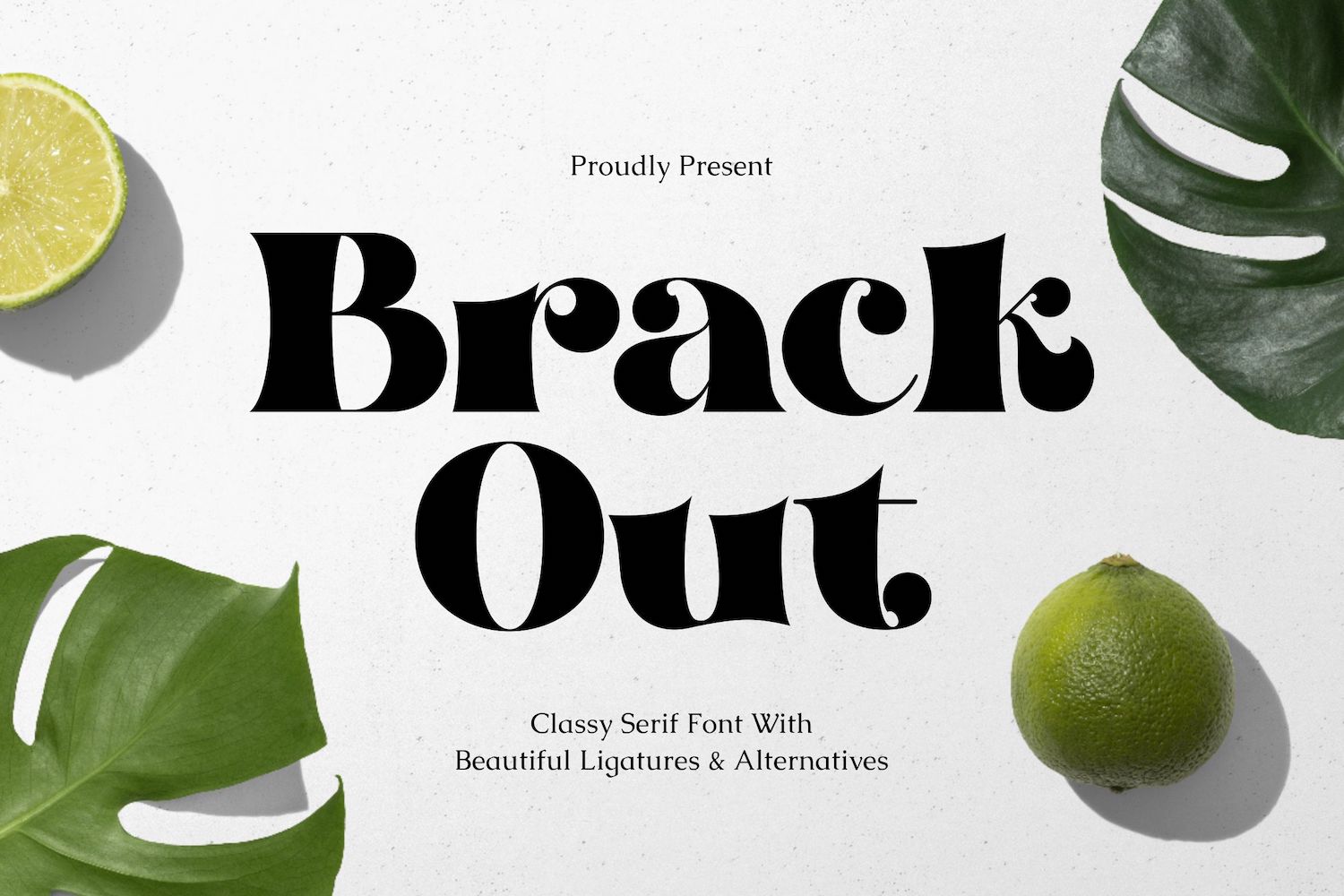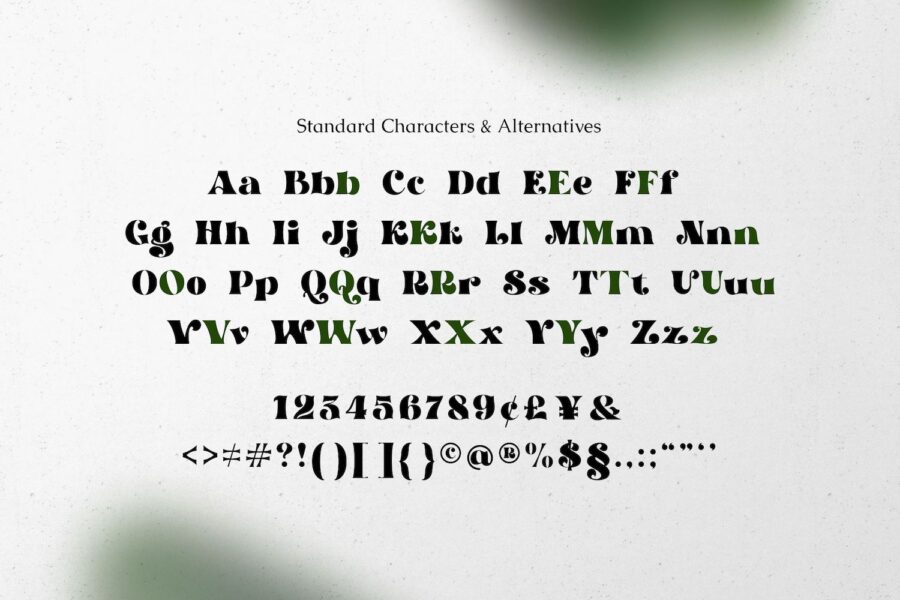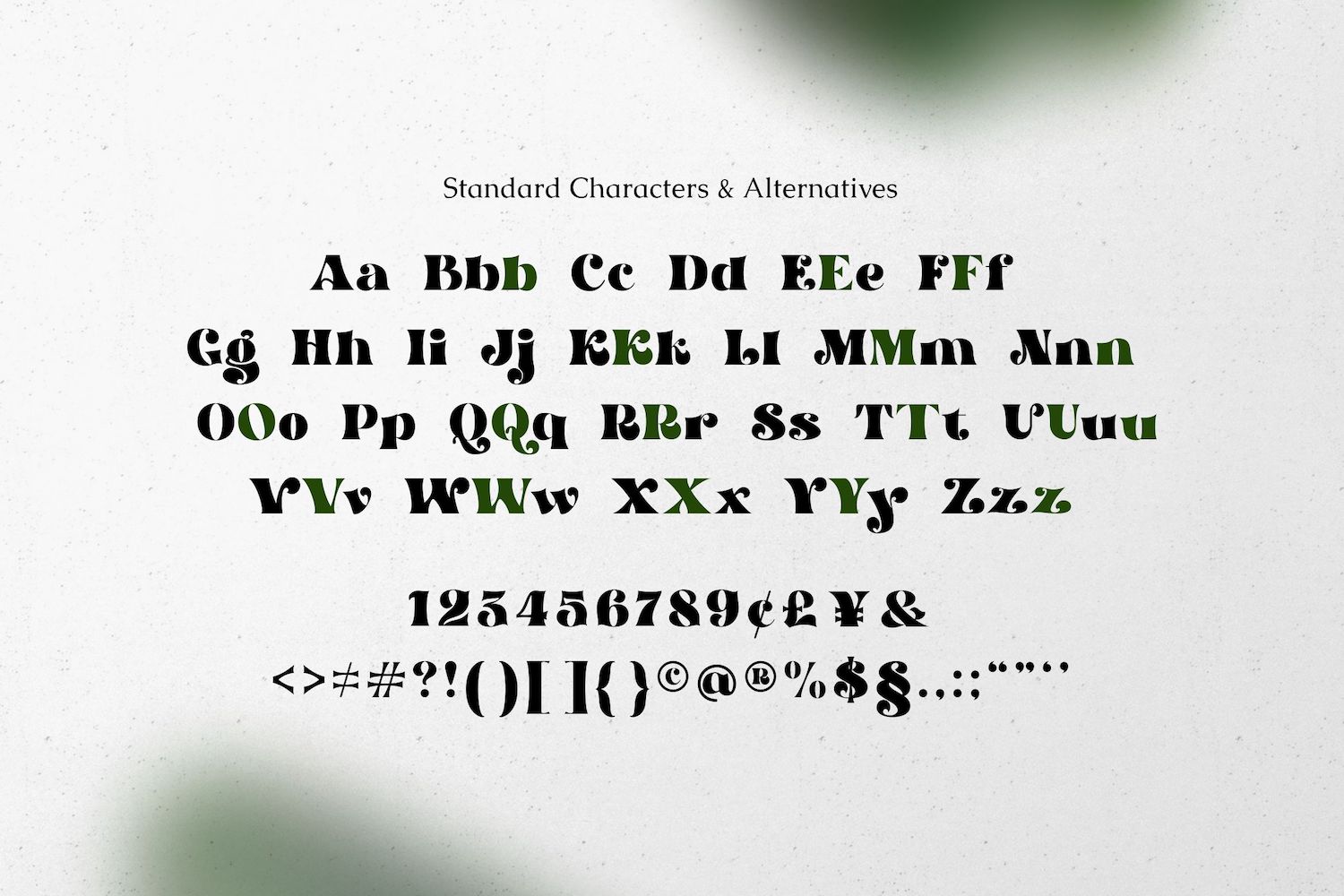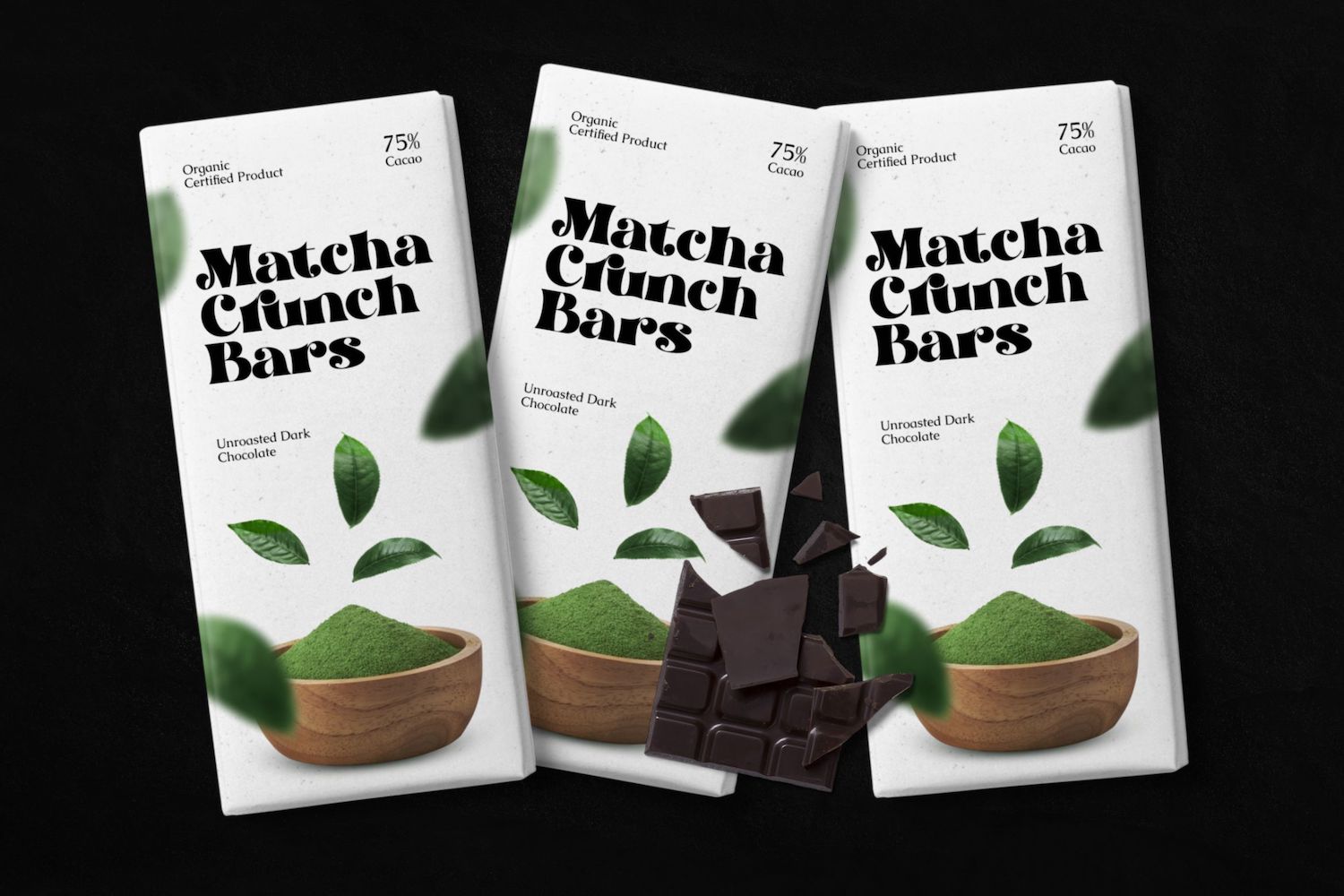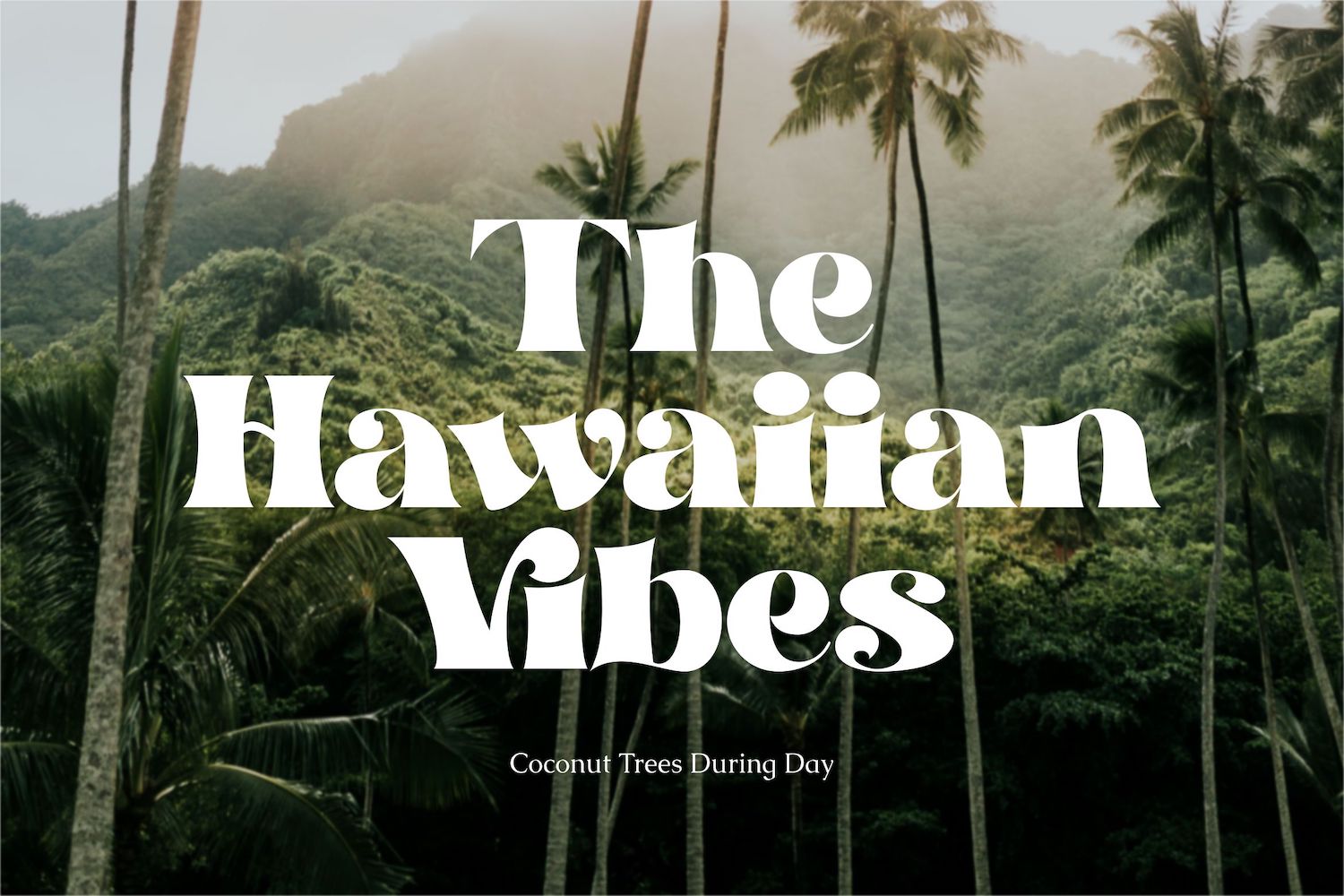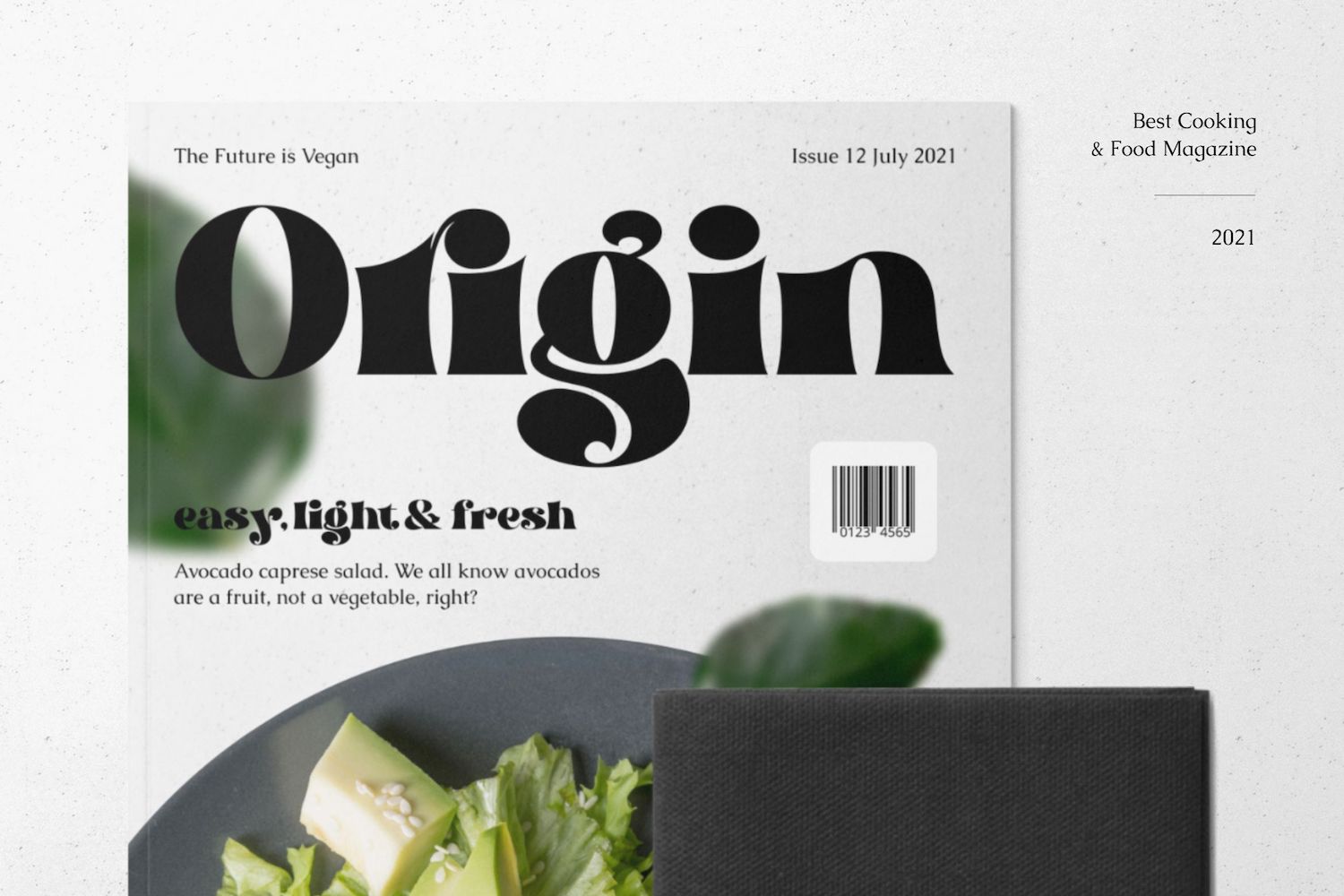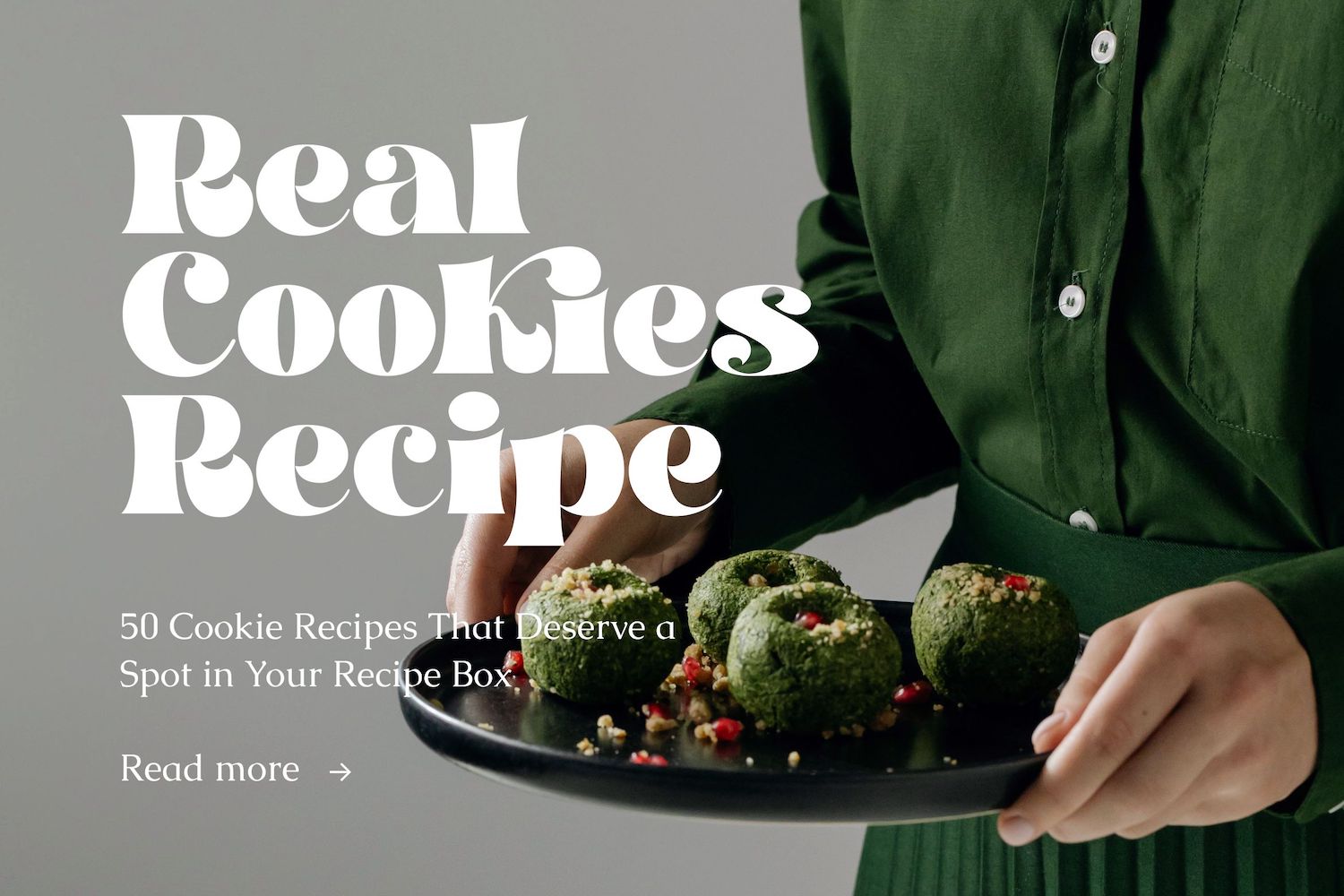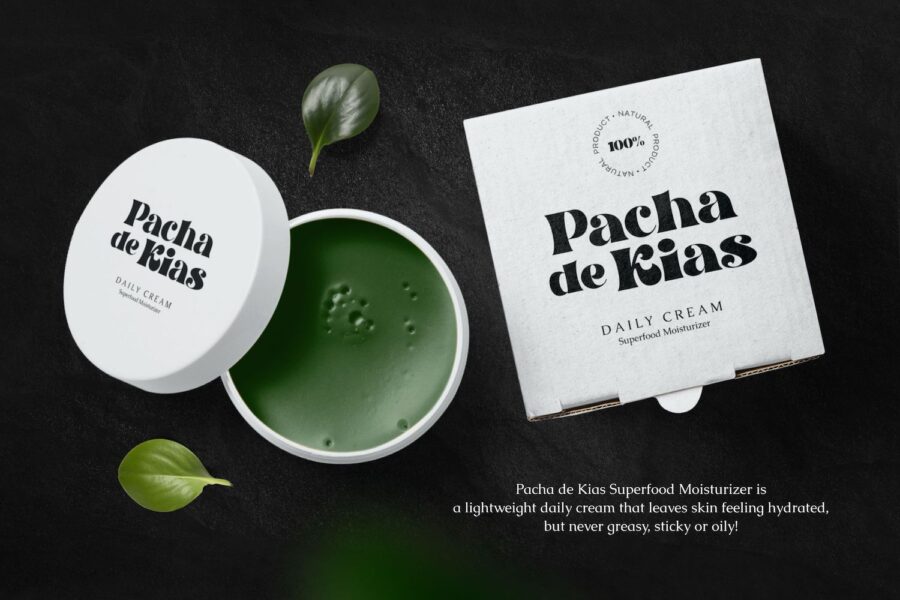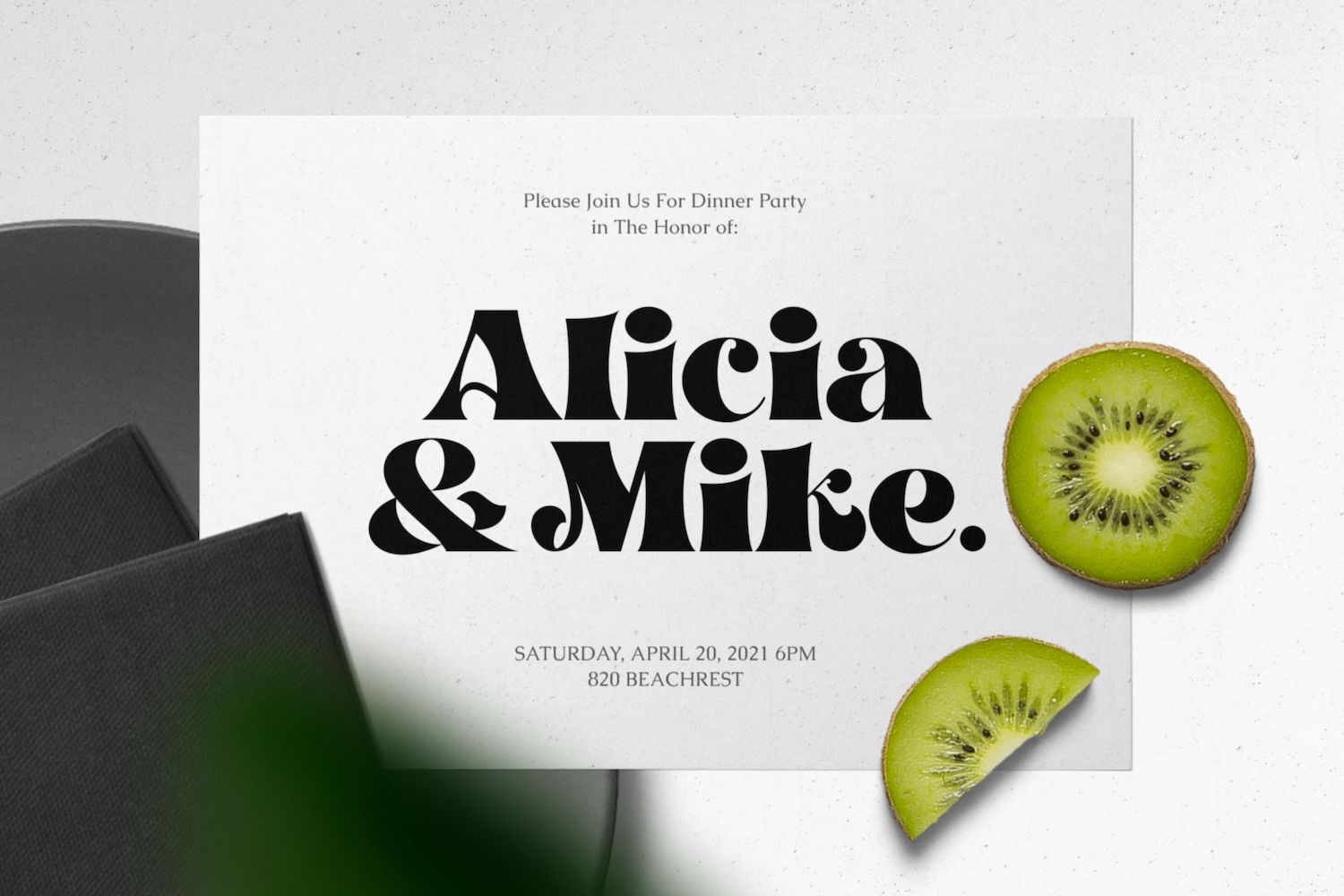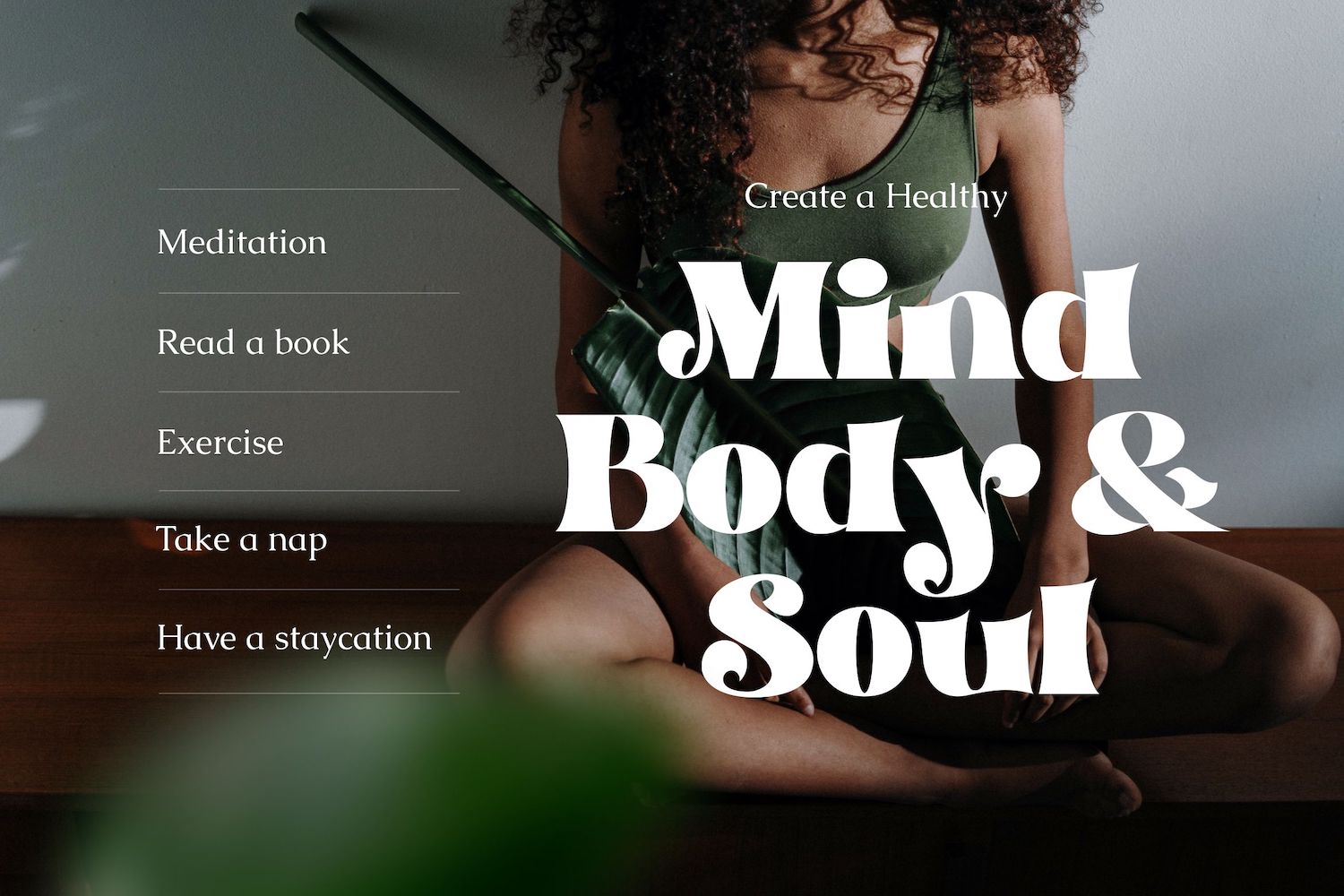
Brack Out is a bold, classy serif font featuring high contrast strokes and playful curves that breathe elegance and energy into every letterform. With a combination of retro charm and modern sophistication, this typeface is perfect for premium branding, editorial titles, and packaging design. The font includes beautiful ligatures and alternate characters that add personality and versatility to your layout.
Whether you’re crafting stylish invitations, magazine covers, or organic product labels, Brack Out delivers a striking visual identity. Its sharp serifs and dramatic weight make it ideal for headlines that demand attention, while the subtle decorative touches ensure a refined and memorable impression.
Brack Out